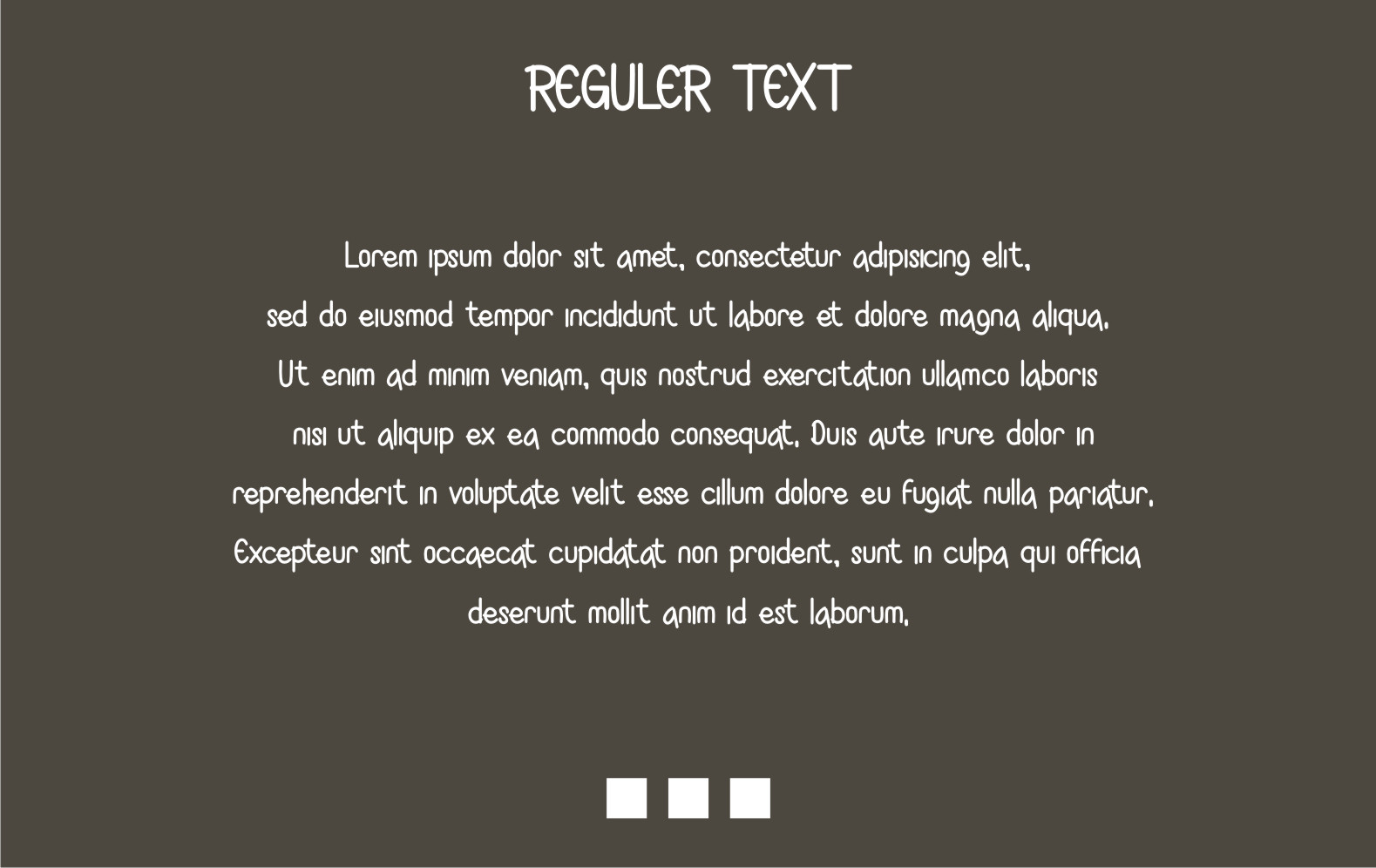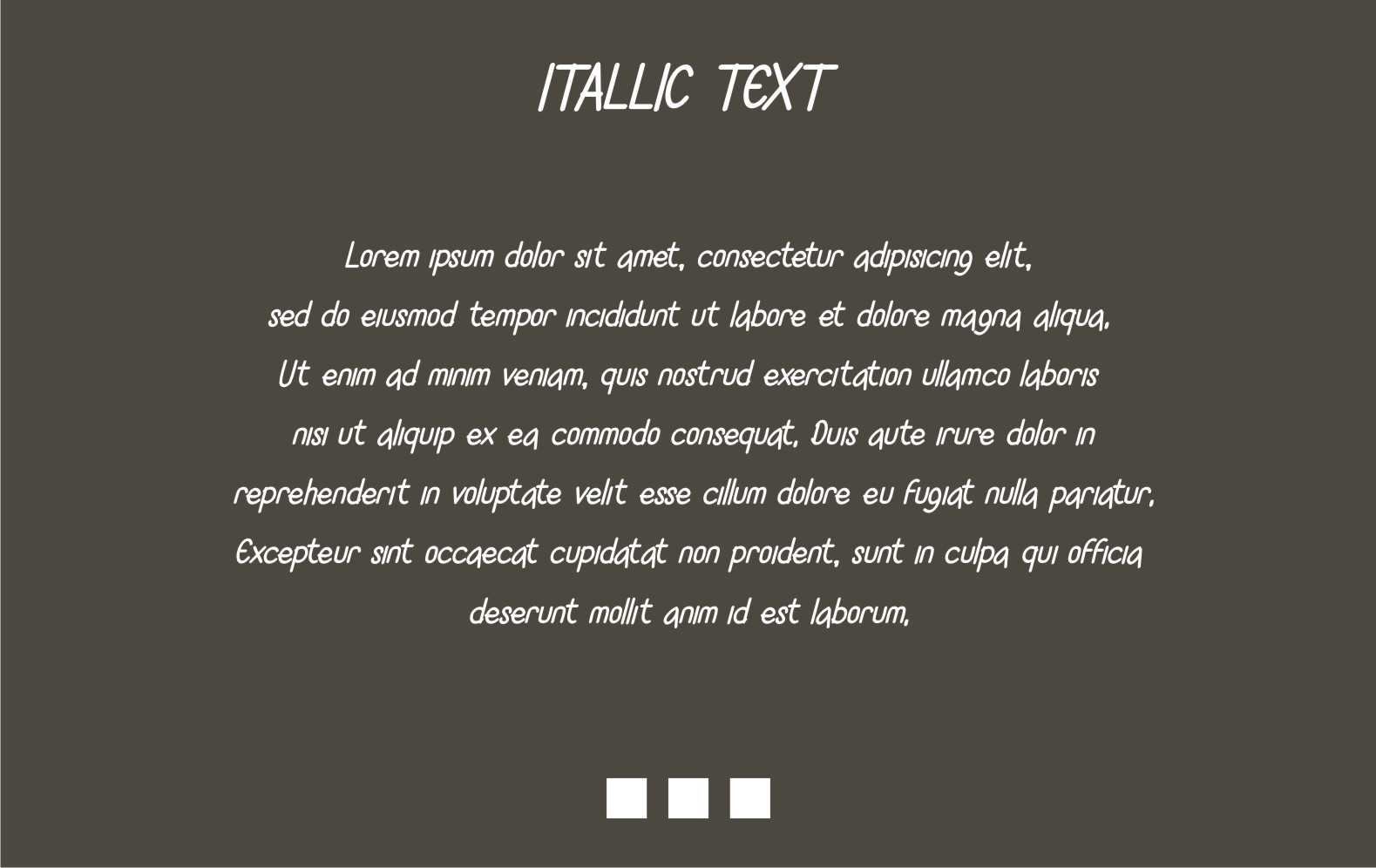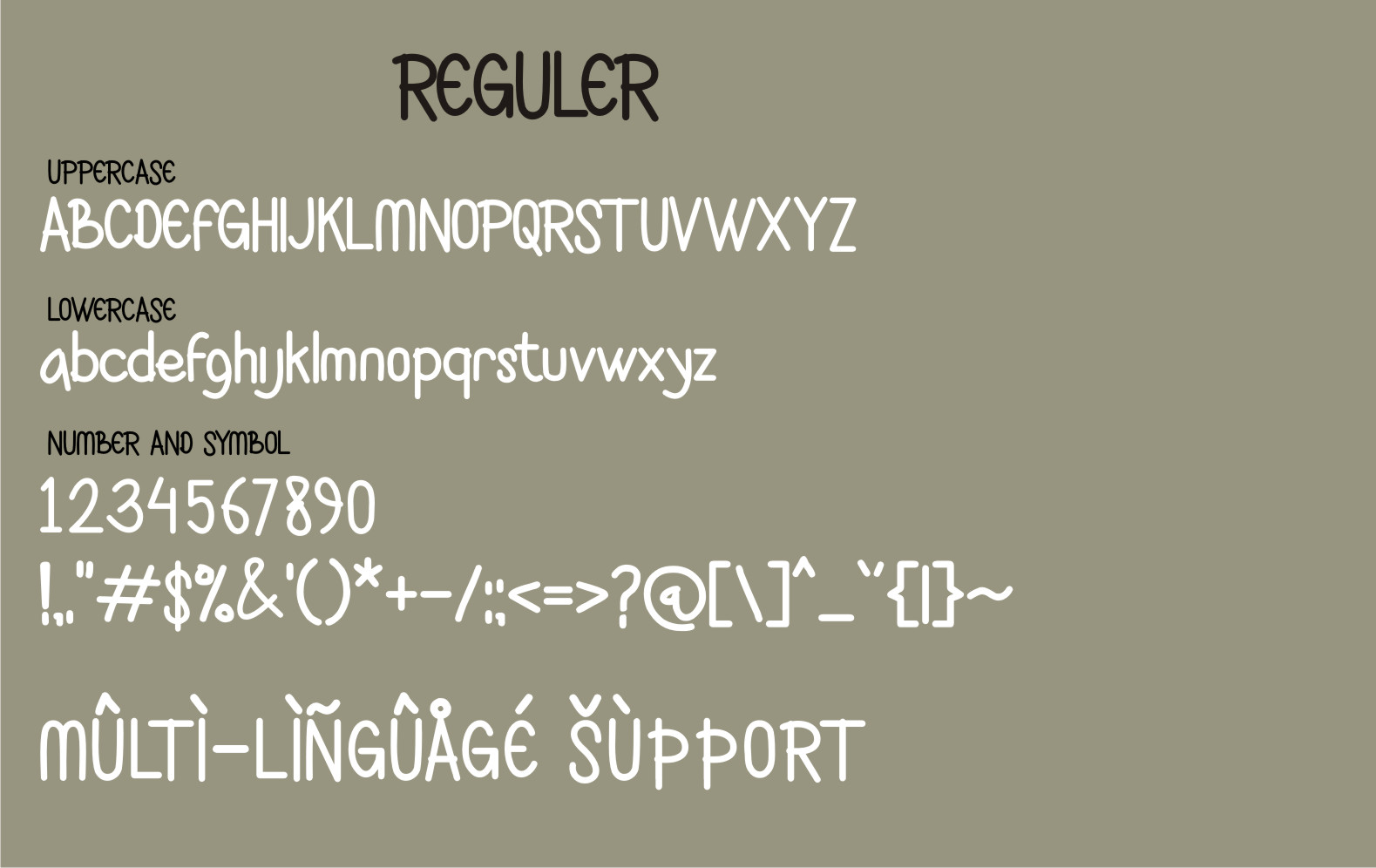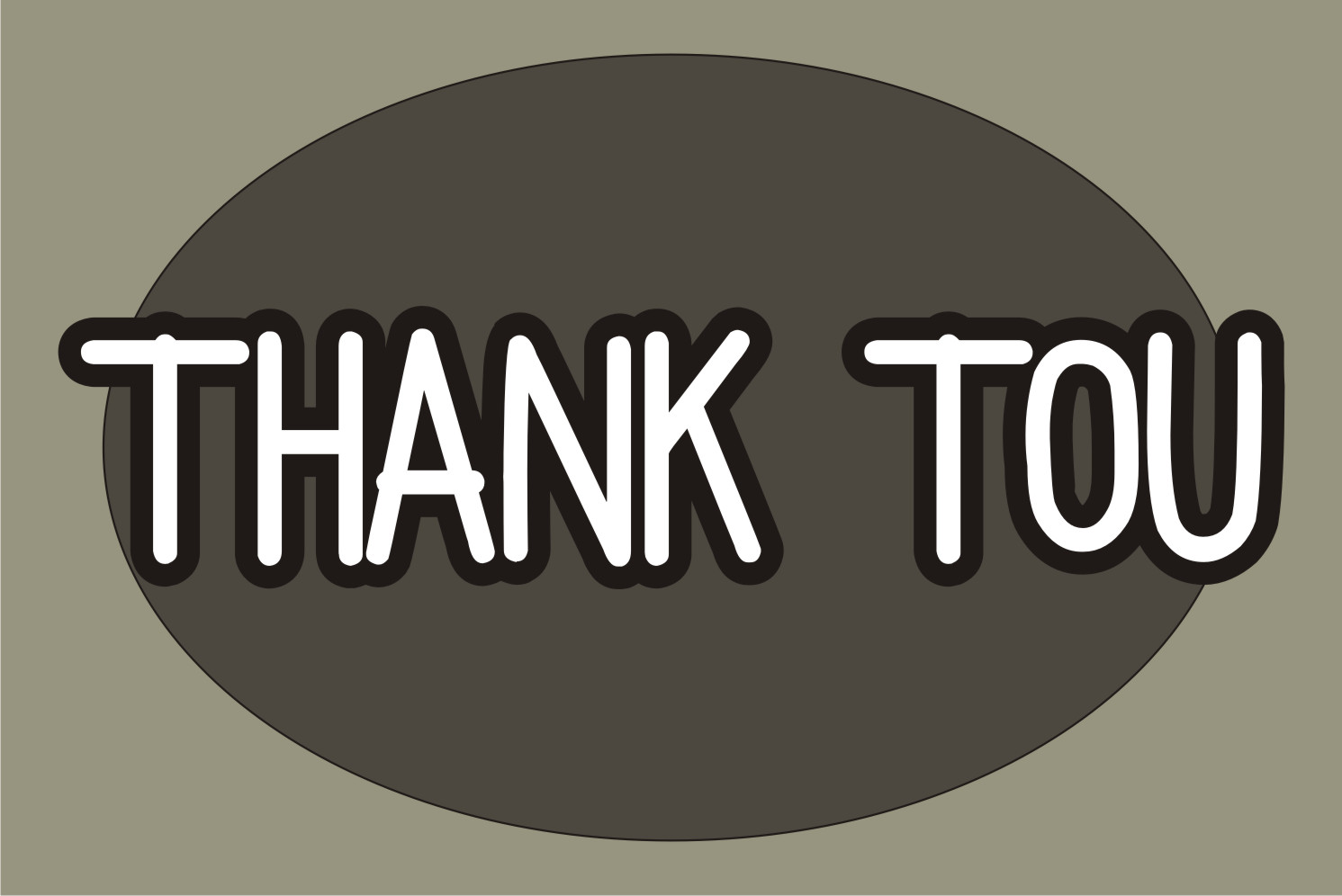
Bemboom Display Font
This is a cool, neat and simple lettered display font. Its informal style and casual vibe will make this font a go-to choice for each of the creations that require a relaxed touch.